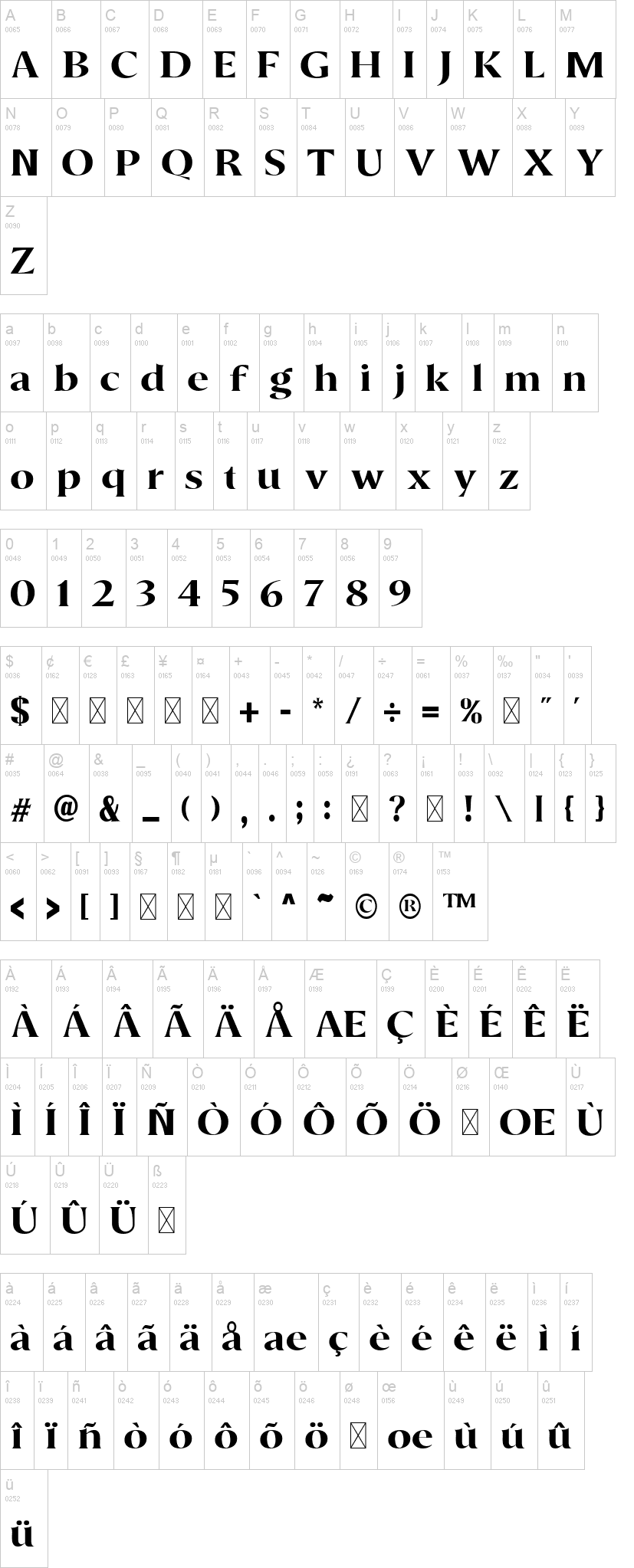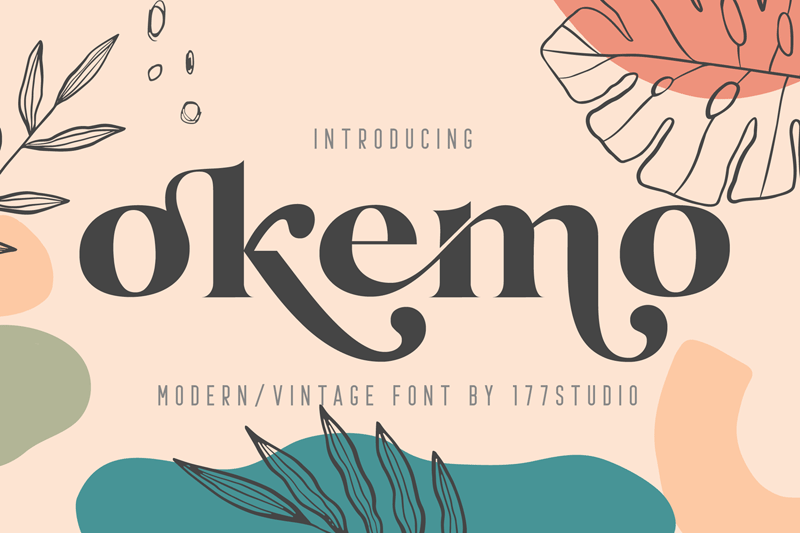
Note of the authorOkemo Modern Serif Font is a stylish font that is both retro and bold font. a new retro serif font! Okemo Font includes a full set of lowercase and uppercase alternates for each letter, plus some extra ending letters, and a bunch of special ligatures.
To make it look more unique, here we prepared some ligatures:
La Ka Ei El Ki ST SF OF OT Th th ti tj ft fj fh fl fk vj wj ra rj cl ck ay at az lg gh tt tr hg dg jg mg ng oh op ok ol si sj gj az ch cm cn eh en em jt it gi va wa ya yi yj